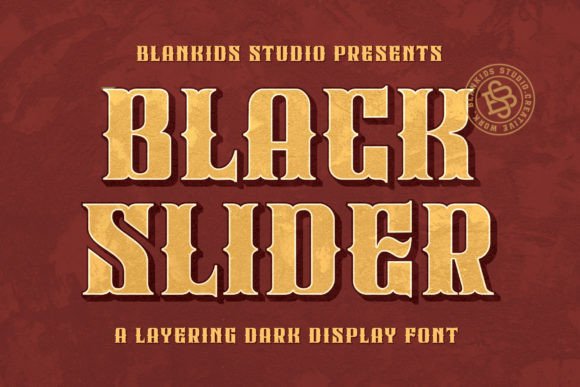
Journey through the realm of captivating designs with Black Slider Font, an enthralling creation from Blankids Studio, exclusively designed for the most discerning and innovative artists. This Gothic-style display font is not merely a font; it's a portal to a world of creativity, where your imagination is set free to explore the depths of artistic expression.
Black Slider's intricate glyphs, reminiscent of ancient runes, hold the power to evoke emotions and make your designs resonate with your audience. Each letterform is a testament to the artistry of the past, meticulously crafted to transport your designs to a realm of enchantment. The subtle Victorian vibe that permeates this font allows you to infuse your projects with a timeless charm, evoking nostalgia and elegance.
Step into the world of Black Slider Font and unleash your creativity. Let your designs radiate with the aura of a bygone era, captivating your audience with the allure of mystery and intrigue. This font is your gateway to a world of imagination, where words dance and stories come alive. Seize the opportunity to make an indelible mark on the minds of your audience; let Black Slider Font be your muse and ignite the flame of your artistic brilliance.